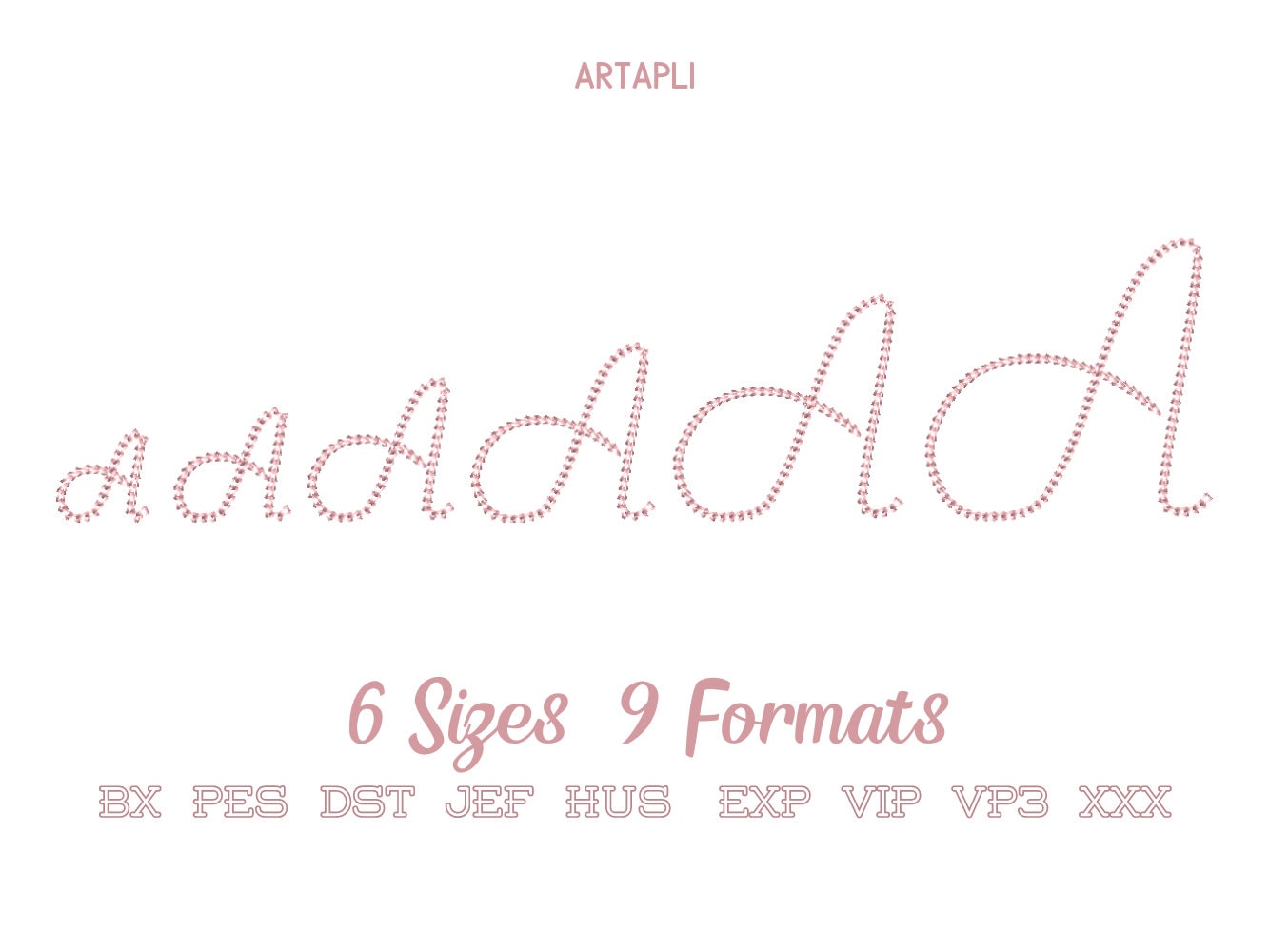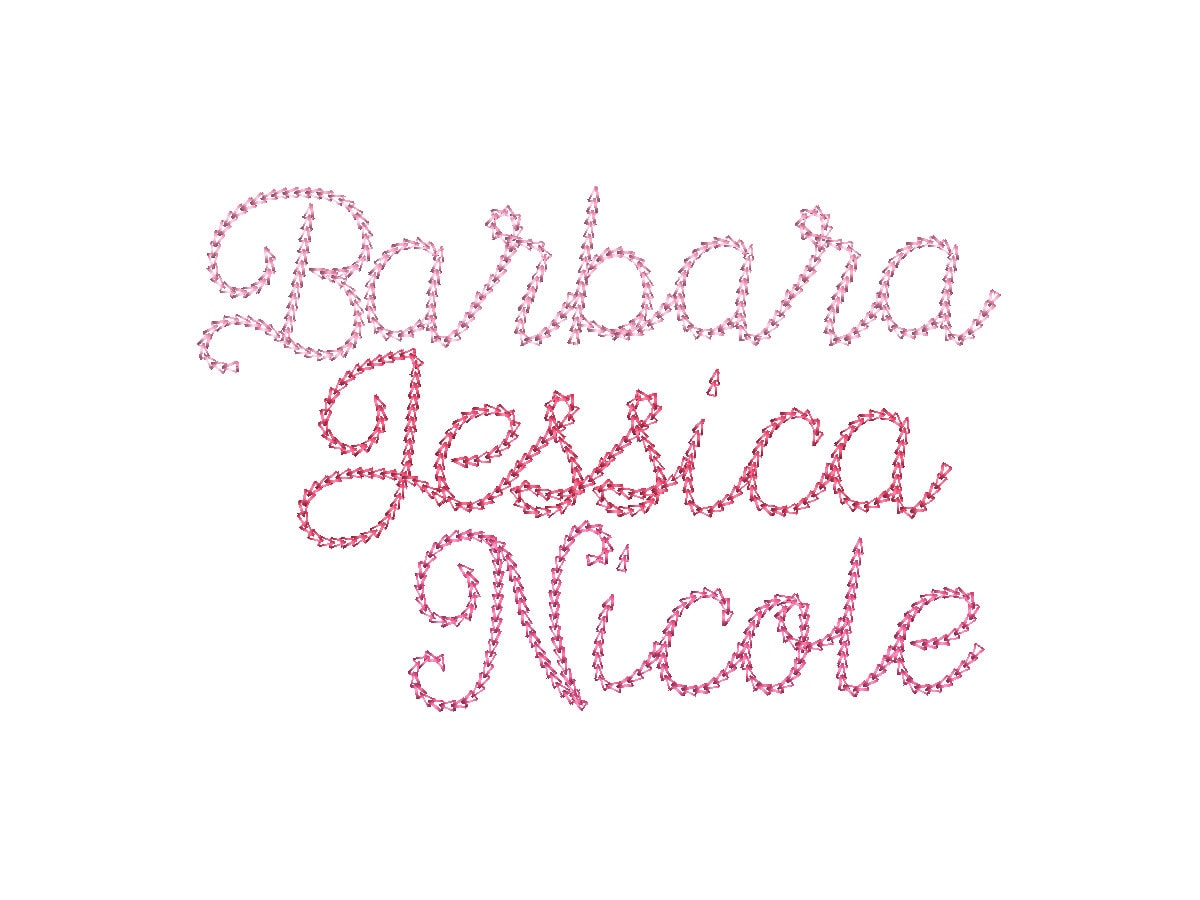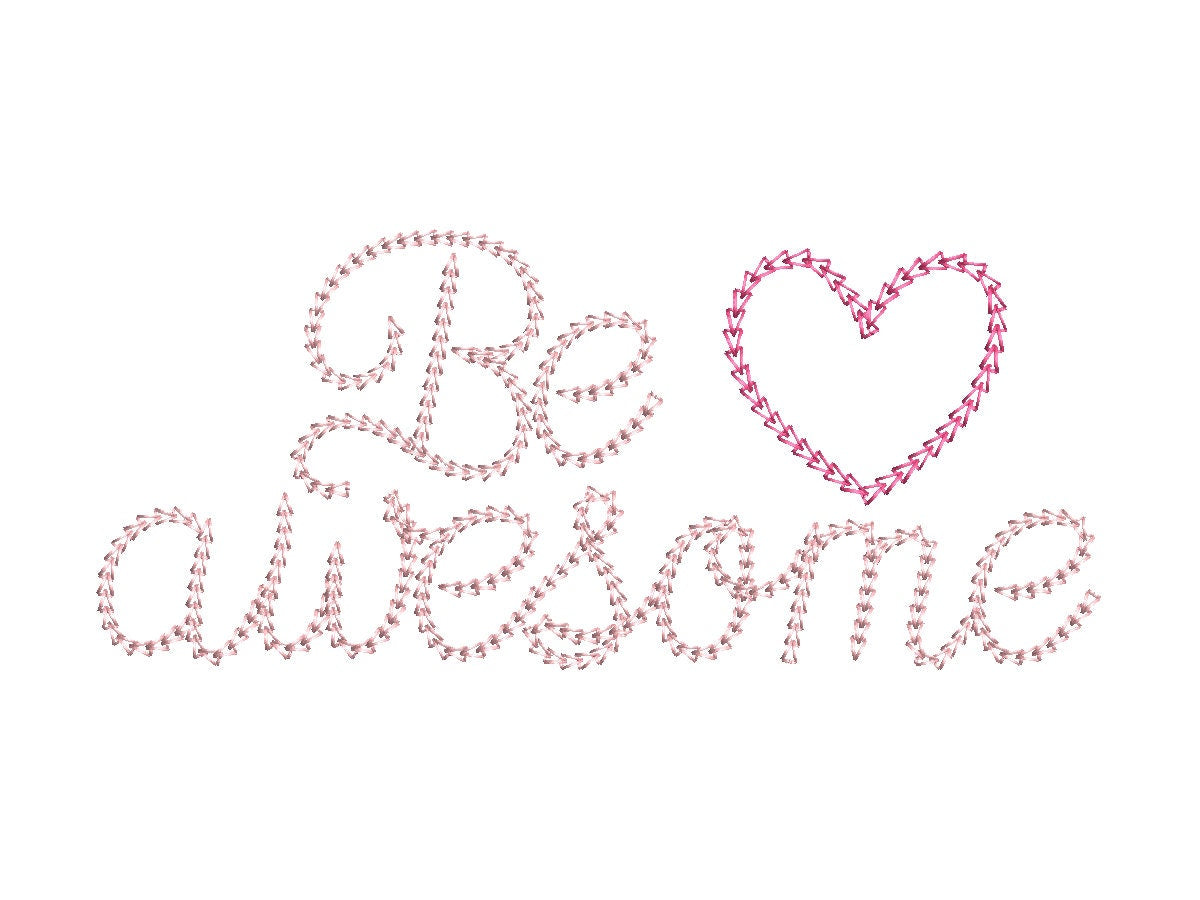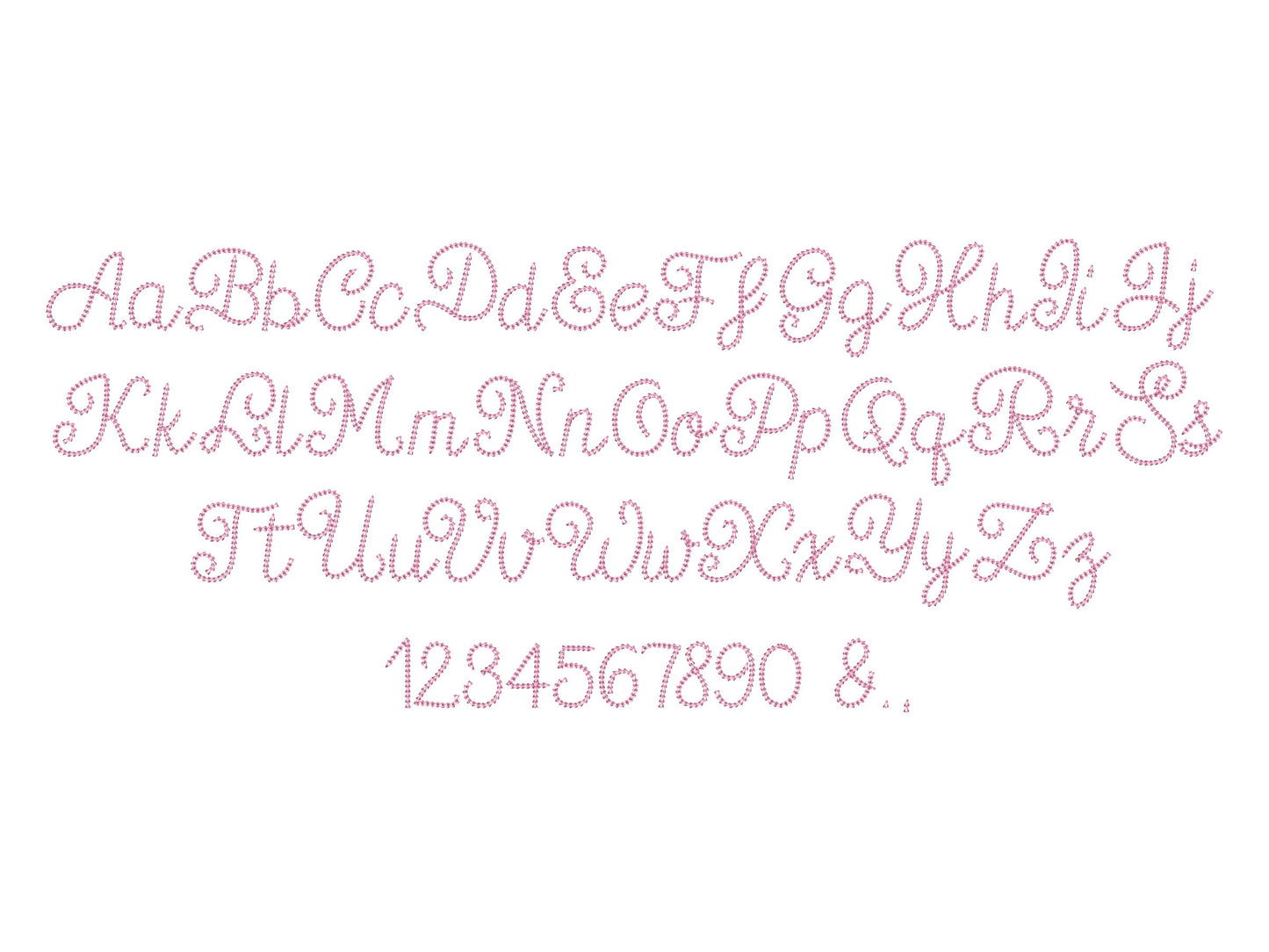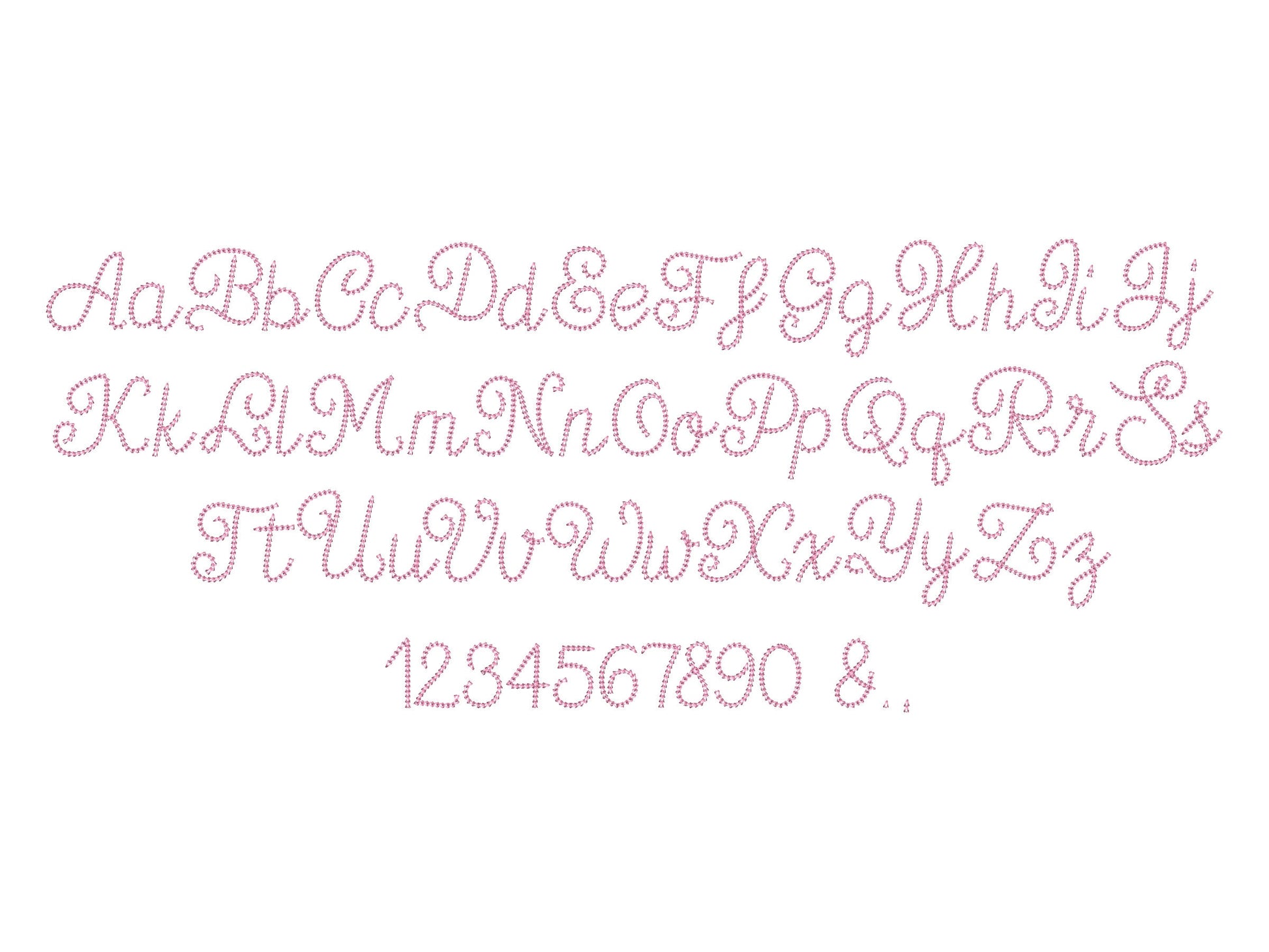
Or click to open the linkA swirly handwritten chain font in quick light stitch. Sweet for kids' names, monograms, bibs and little sayings.
Uppercase and lowercase letters, numbers 0 to 9 and punctuation, in six sizes: 1, 1.2, 1.5, 2, 2.5 and 3 inches. Light chain stitching with playful swirls stitches fast.